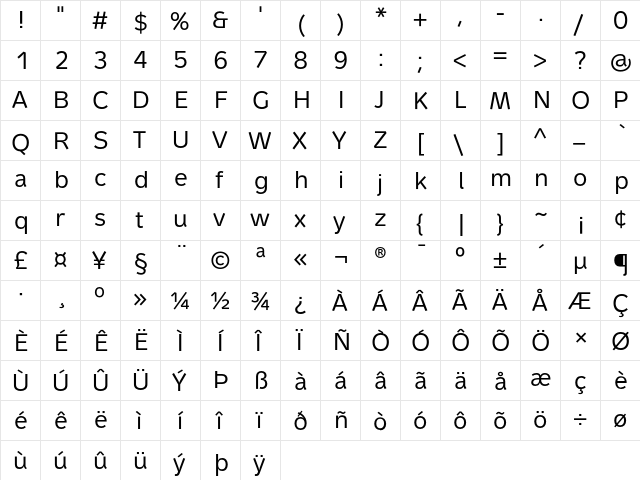
Metron Text Pro Regular
| Foundry | Rathousky, Storm & Pistora,https://www.stormtype.com |
| Designer | Jiri Rathousky, Frantisek Storm, Marek Pistora |
Design Context for Metron Text Pro Typeface
Metron Text Pro offers clean, dependable letterforms without strong stylistic allegiance, making it a practical choice for designers who need flexibility.